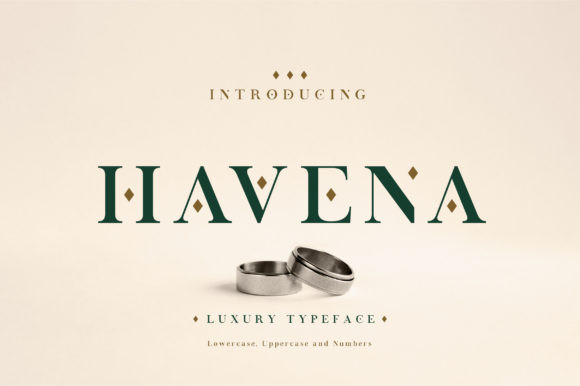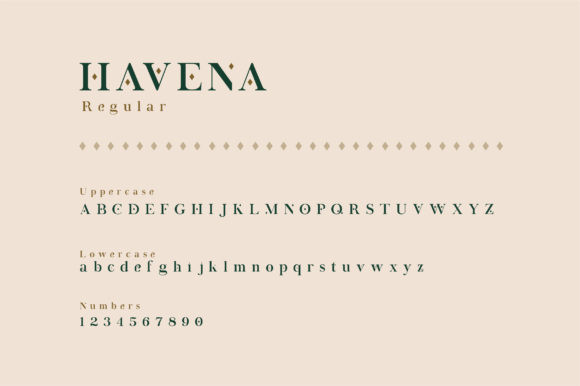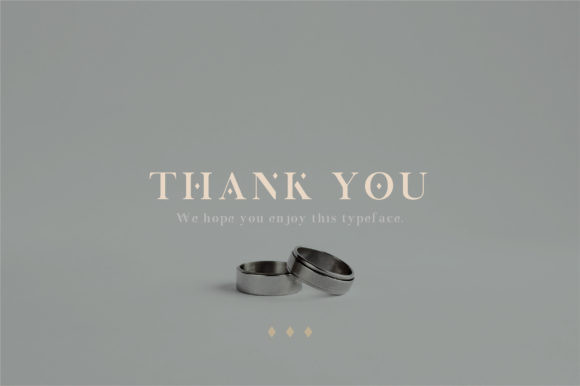
Havena Font
Havena is a bold and neat serif font. It can easily be matched to an incredibly large set of projects, so add it to your creative ideas and notice how it makes them stand out!